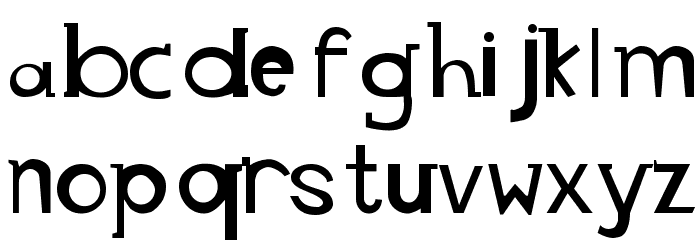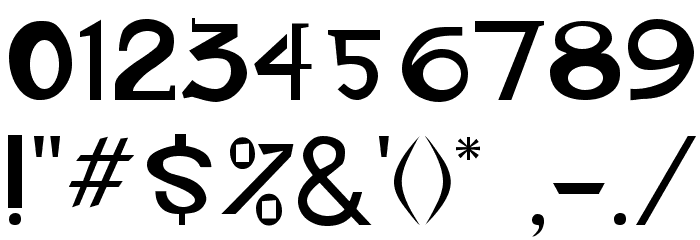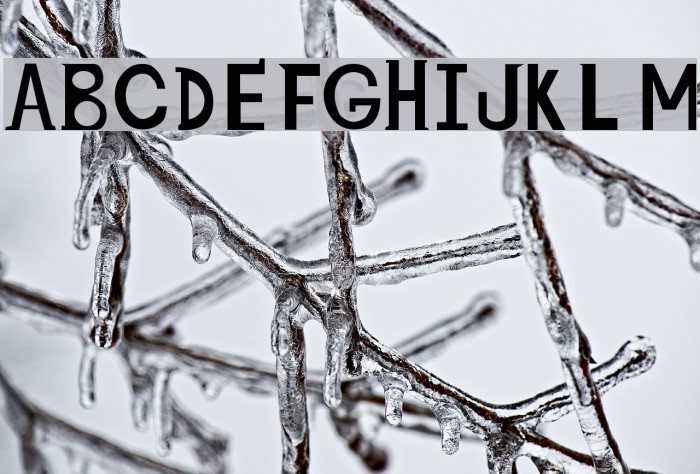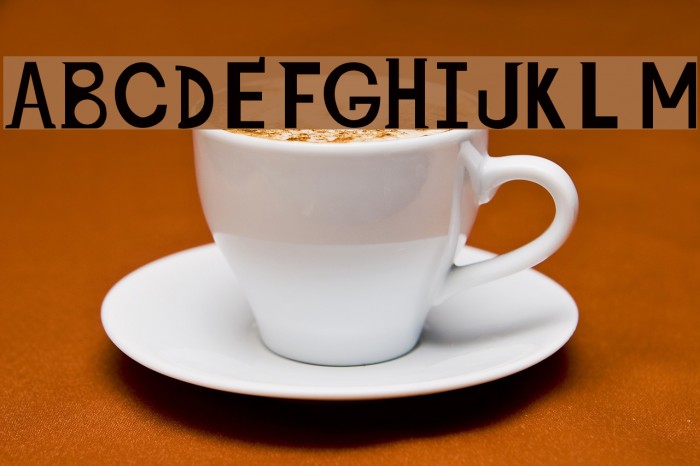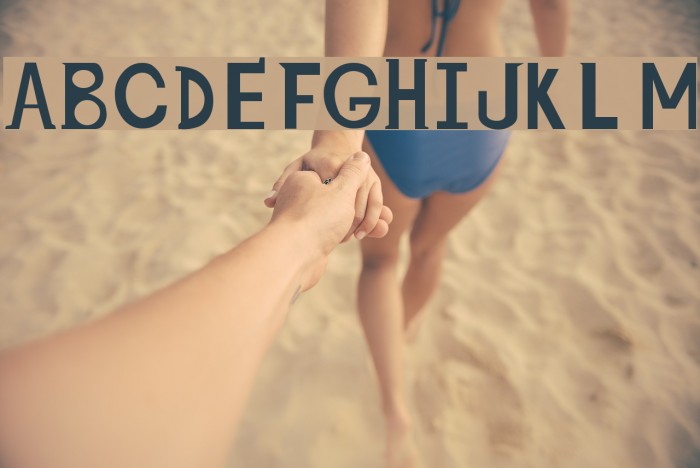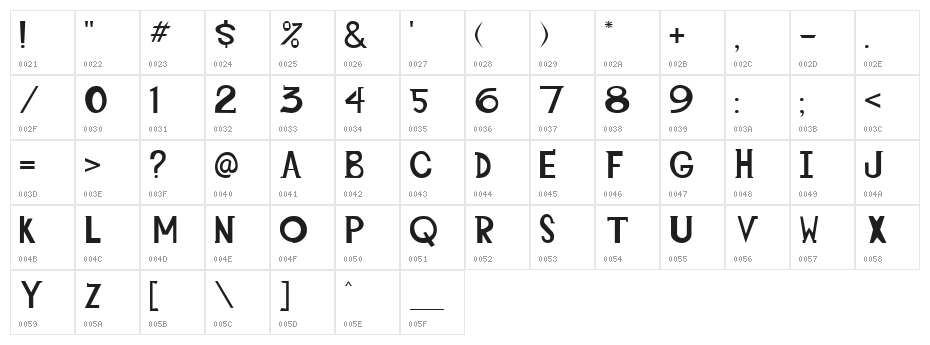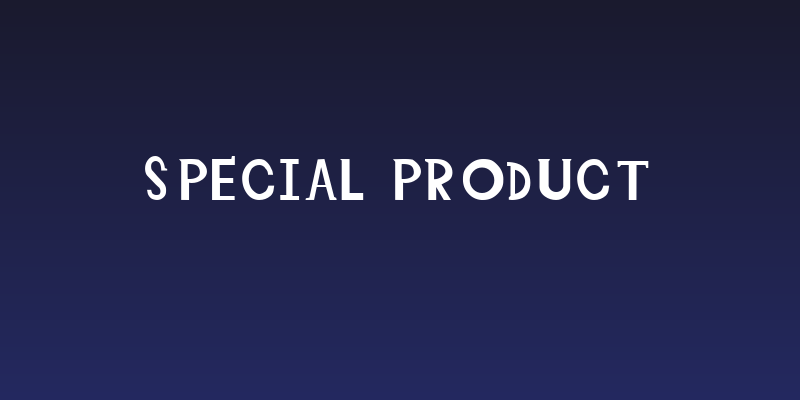
special product Font
This font features a bold and playful design with a unique blend of geometric and organic shapes. The uppercase letters are characterized by their strong, angular lines and slightly exaggerated serifs, giving them a distinct and eye-catching appearance. The lowercase letters maintain a consistent style, with rounded edges and a whimsical flair that adds a touch of personality. The numerals are bold and clear, making them easily readable, while the special characters are creatively designed to match the overall aesthetic. This font's unique style makes it suitable for projects that require a fun and engaging visual impact.
A bold, playful font with geometric and organic elements, ideal for eye-catching designs.
- Proposed Projects: Perfect for children's books, playful branding, posters, and creative advertising campaigns.
- Overall Style: Playful, Modern